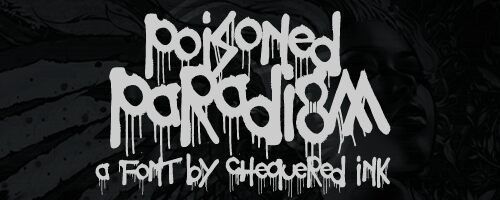
Poisoned Paradigm
"Poisoned Paradigm" is a captivating display font designed by Chequered Ink, exuding an eerie, unsettling charm. The dripping, distorted letterforms evoke a sense of unease, with jagged edges and a menacing aesthetic.
This font's raw, visceral style lends itself well to horror-themed designs, dark branding, and avant-garde artistic projects. The distinct, unnerving appearance of "Poisoned Paradigm" sets it apart as a versatile tool for creating impactful visuals that challenge the viewer's perceptions.
Its versatility extends to various applications, from movie posters and album covers to edgy product packaging and haunting digital art.